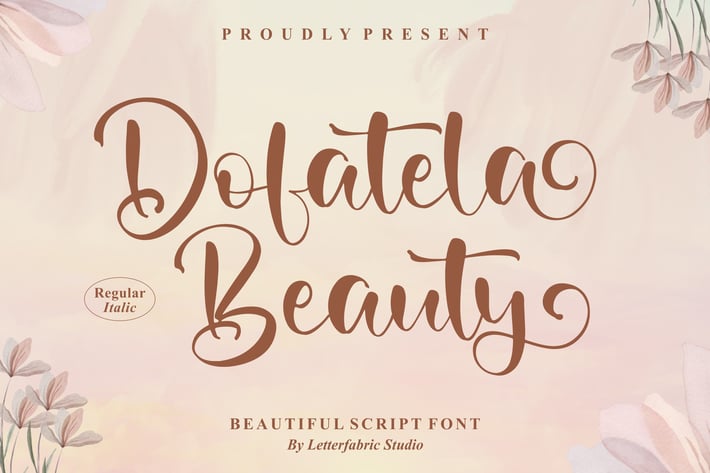
Dofatela Beauty Beautiful Script Font
Dofatela Beauty is a graceful handwritten script font that combines elegance with modern charm. With its flowing strokes and natural feel, this font adds a warm and personal touch to your creative projects. Perfect for those seeking sophistication with a hint of playful beauty.
+ Elegant handwritten script style
+ Regular & Italic versions
+ Smooth strokes with natural flow
+ Branding & logos
+ Wedding invitations
+ Social media graphics
+ Posters & stationery
+ Personal projects
Bring your words to life with a font that embodies both beauty and personality.